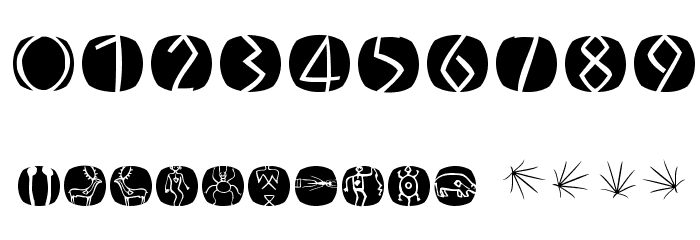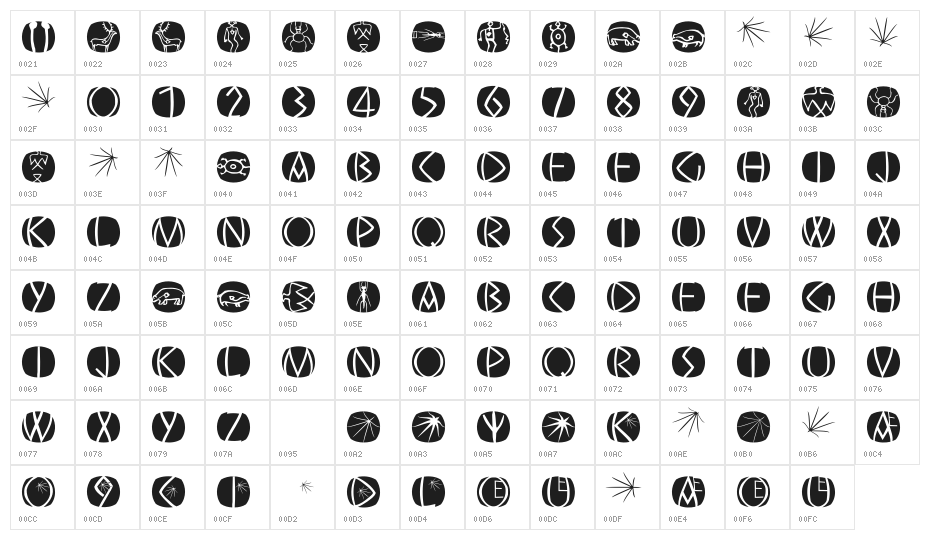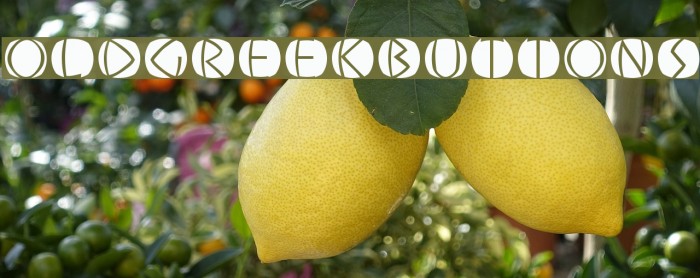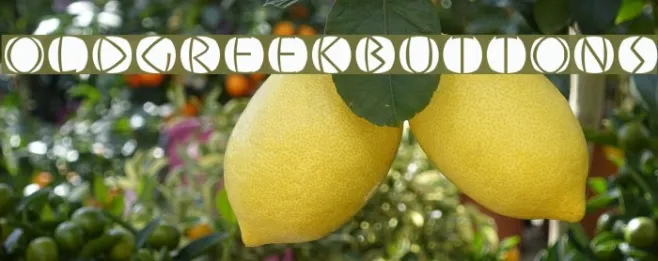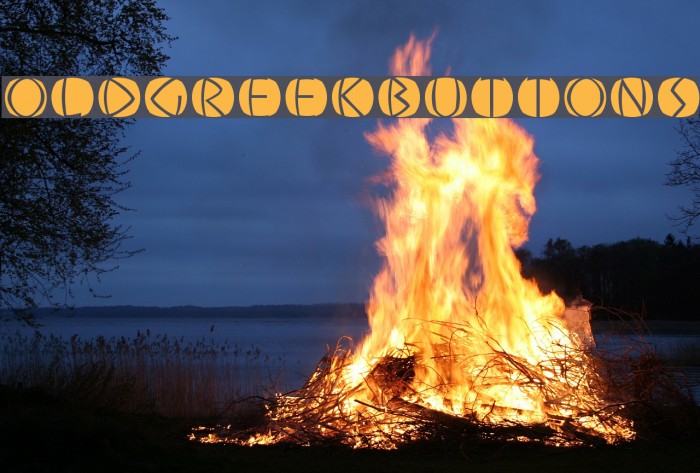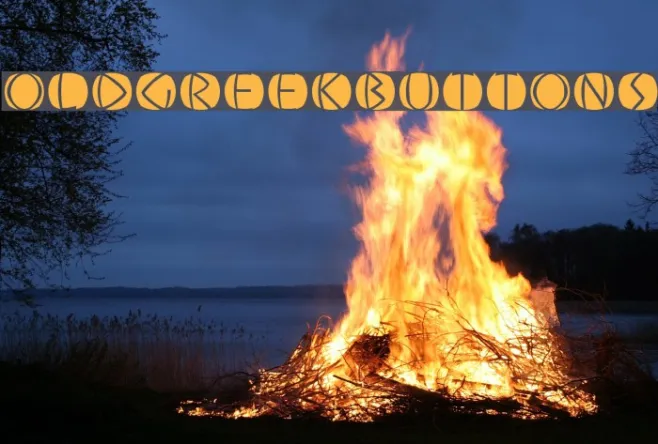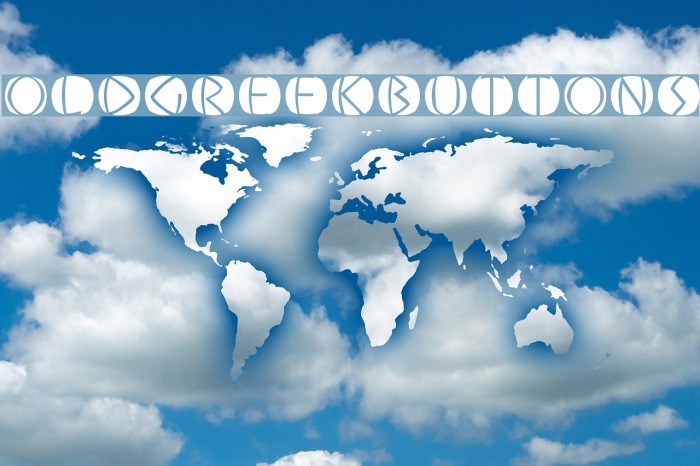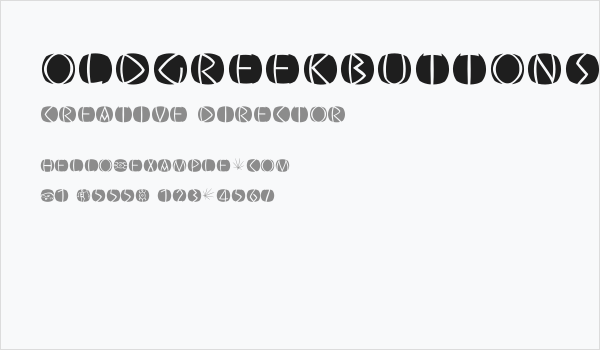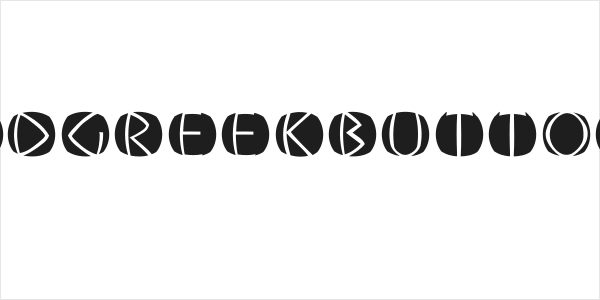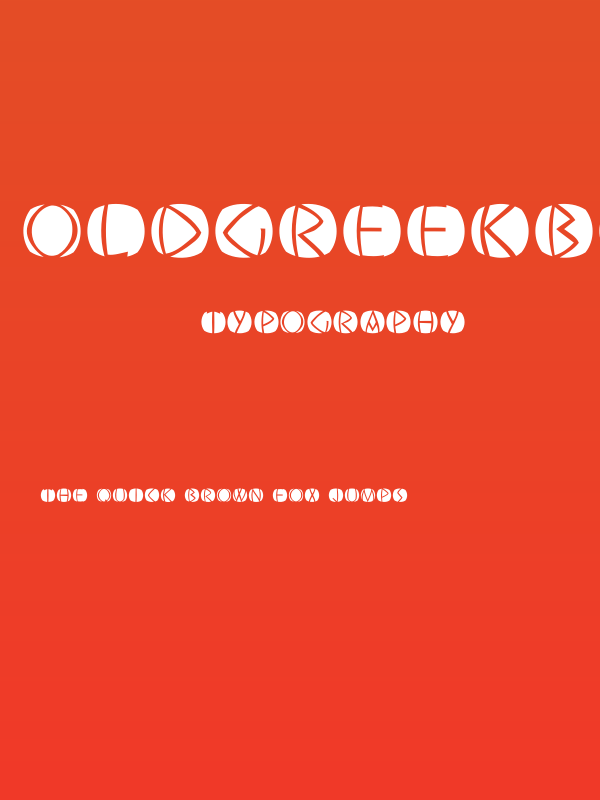
OldGreekButtons Font
OldGreekButtons Description
This font features a unique and bold design with each character enclosed within a circular shape, reminiscent of ancient Greek inscriptions. The letters are stylized with sharp, angular lines that create a striking contrast against the rounded background. The uppercase and lowercase letters maintain a consistent style, offering a cohesive look. Numbers and special characters are also included, each following the same design principle. The overall appearance is decorative and eye-catching, making it suitable for projects that require a historical or thematic touch.
| Proposed Projects | Ideal for themed posters, historical event promotions, cultural exhibitions, or any project seeking a classical aesthetic. |